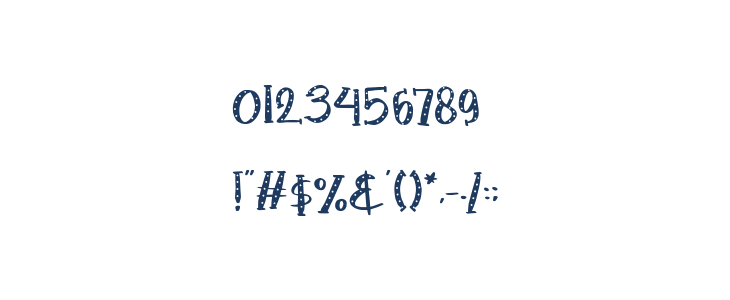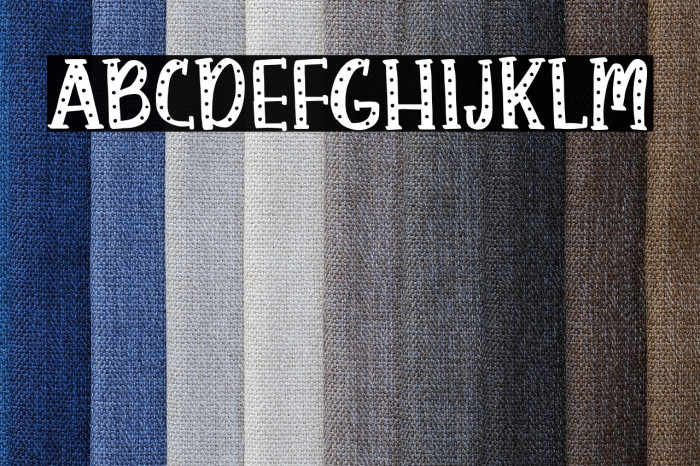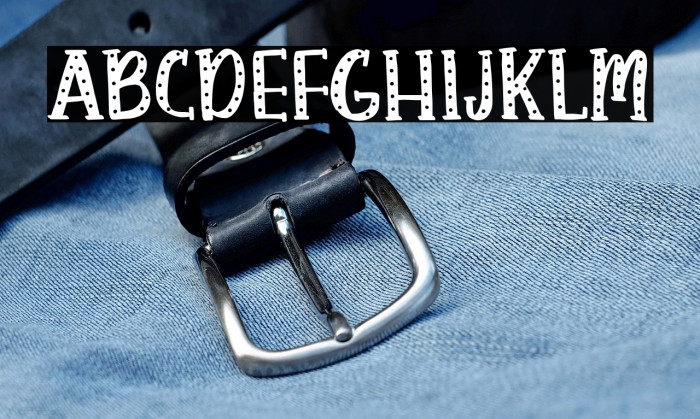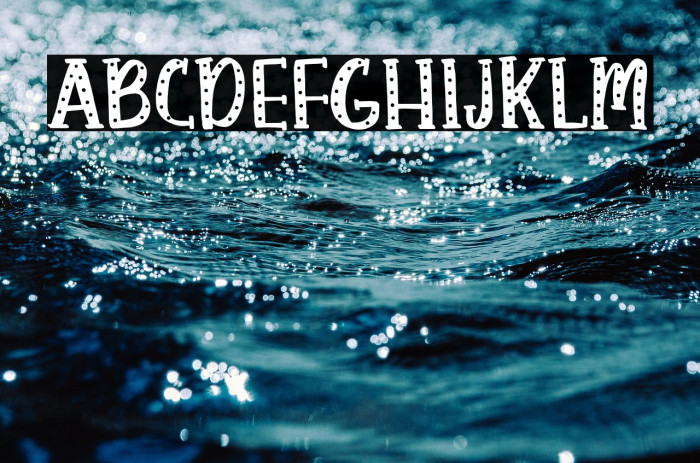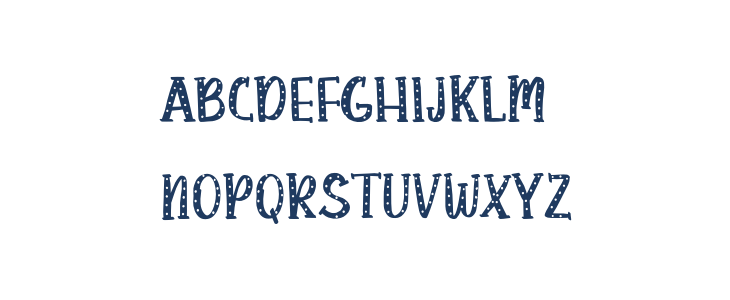
Polkadot Font
Polkadot Description
This font features a playful and whimsical design, characterized by its bold, decorative letters adorned with polka dots. The uppercase and lowercase letters maintain a consistent style, with rounded edges and a slightly irregular form that adds to its charm. The numbers and special characters follow the same playful theme, making it suitable for creative and fun projects. The overall appearance is eye-catching and lively, perfect for designs that require a touch of personality and flair.
| Overall Style | Playful, Whimsical, Decorative |
| Proposed Projects | Ideal for children's books, party invitations, playful branding, and creative posters. |